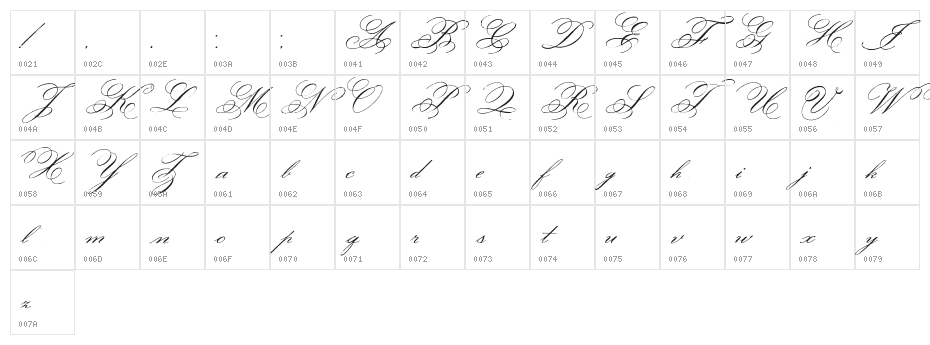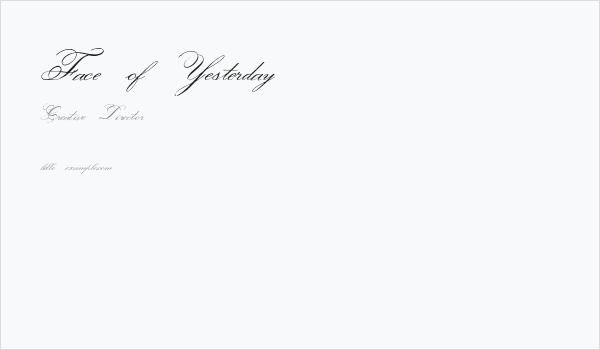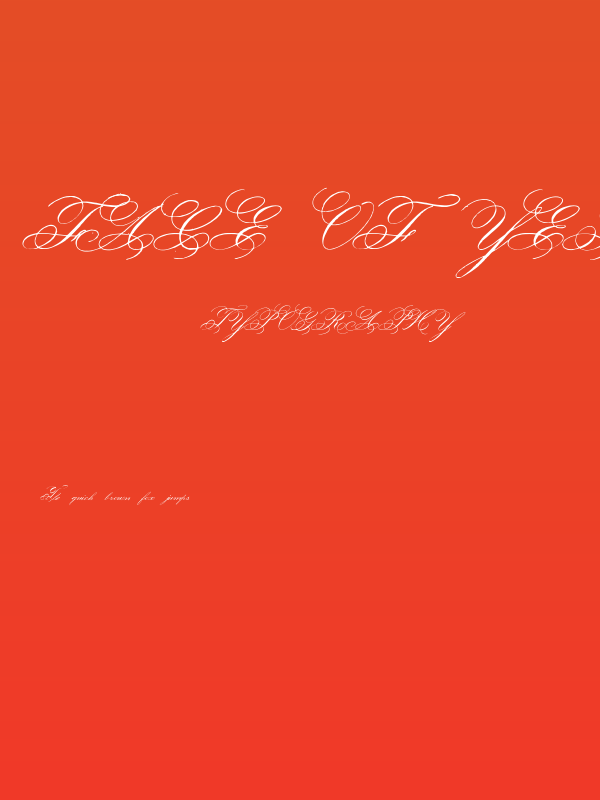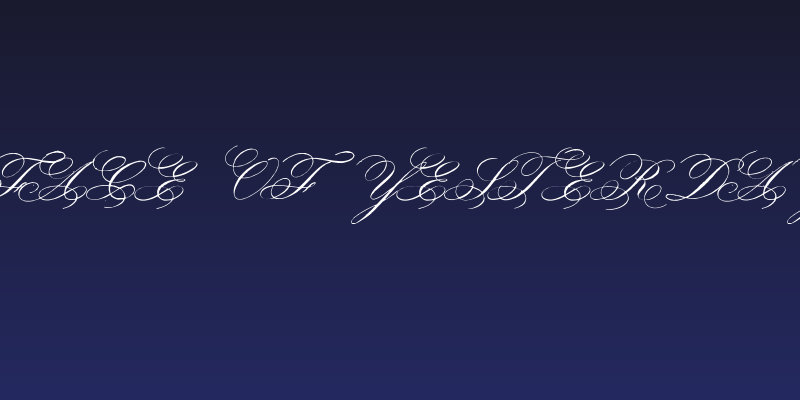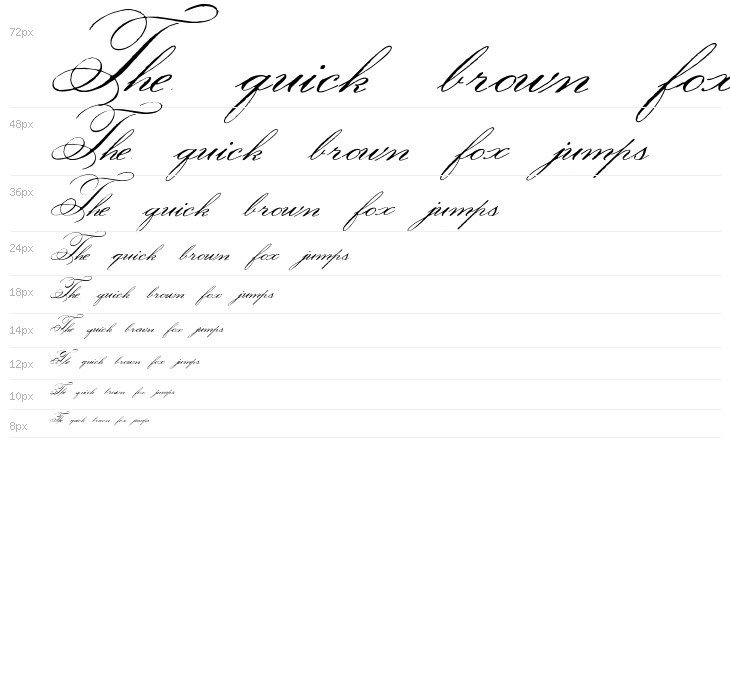
Face of Yesterday Font
Face of Yesterday Description
This elegant script font features intricate, flowing lines that create a sense of sophistication and grace. The uppercase letters are highly decorative, with elaborate swirls and loops that give them a classic, ornamental appearance. The lowercase letters maintain a more restrained elegance, with smooth, continuous strokes that enhance readability while preserving the font's overall ornate style. The numerals and special characters are designed to match the script's aesthetic, ensuring a cohesive look across all text elements. This font's high contrast in stroke thickness adds to its dramatic flair, making it ideal for projects that require a touch of luxury and refinement.
| Proposed Projects | Ideal for wedding invitations, luxury branding, elegant packaging, and formal event materials. |